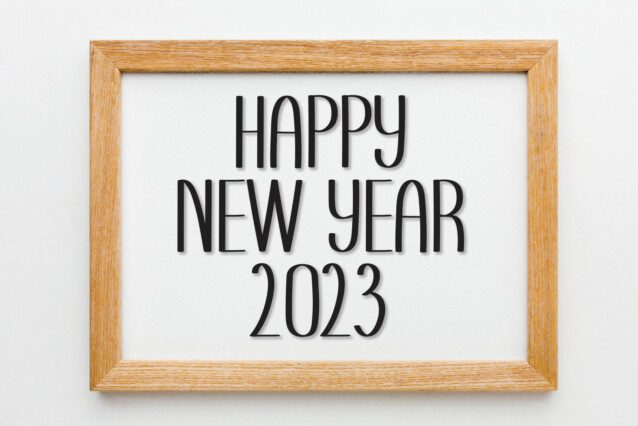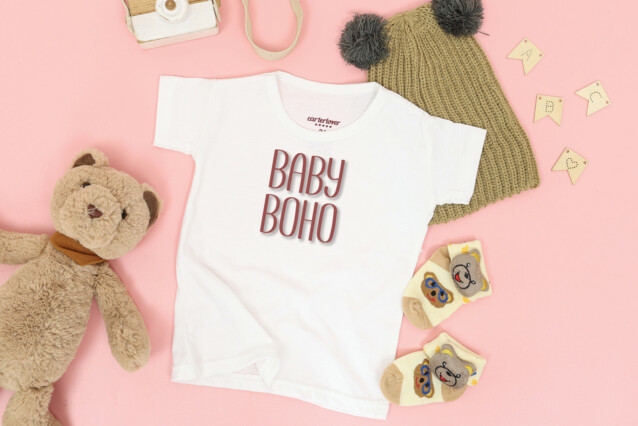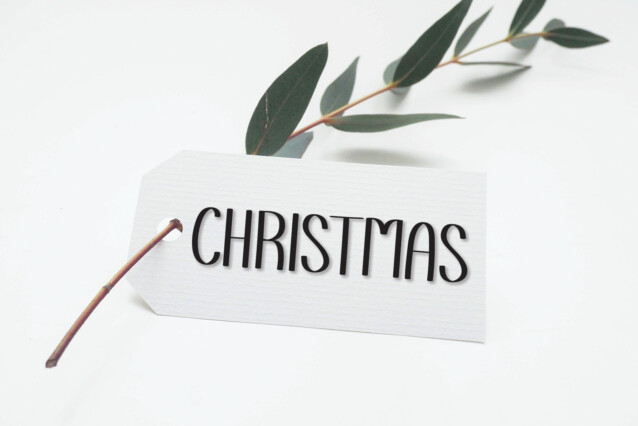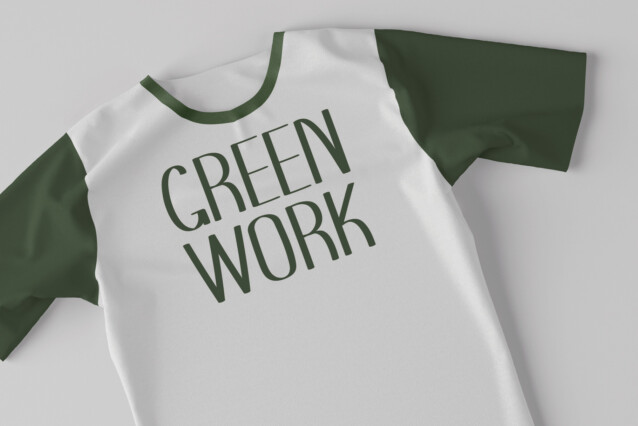
Christmas Lolipop Display Font
Christmas Lolipop Display Font is a simple sans-serif font. Its latest style letters are perfect for wall displays, wedding invitations, social media post logos, advertisements, product packaging, product designs, labels, photography, watermarks, invitations, stationery, and any project that requires modern typography.